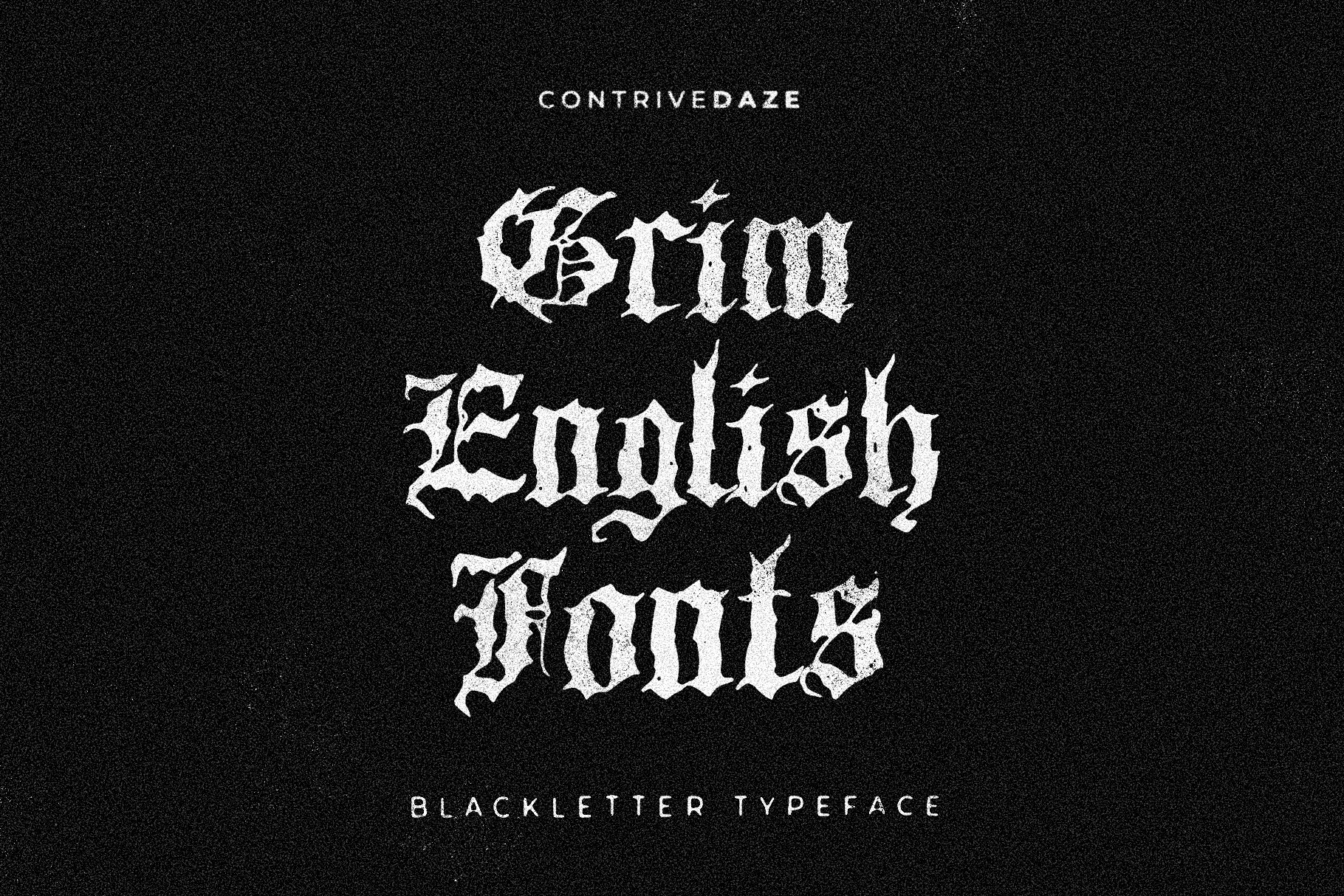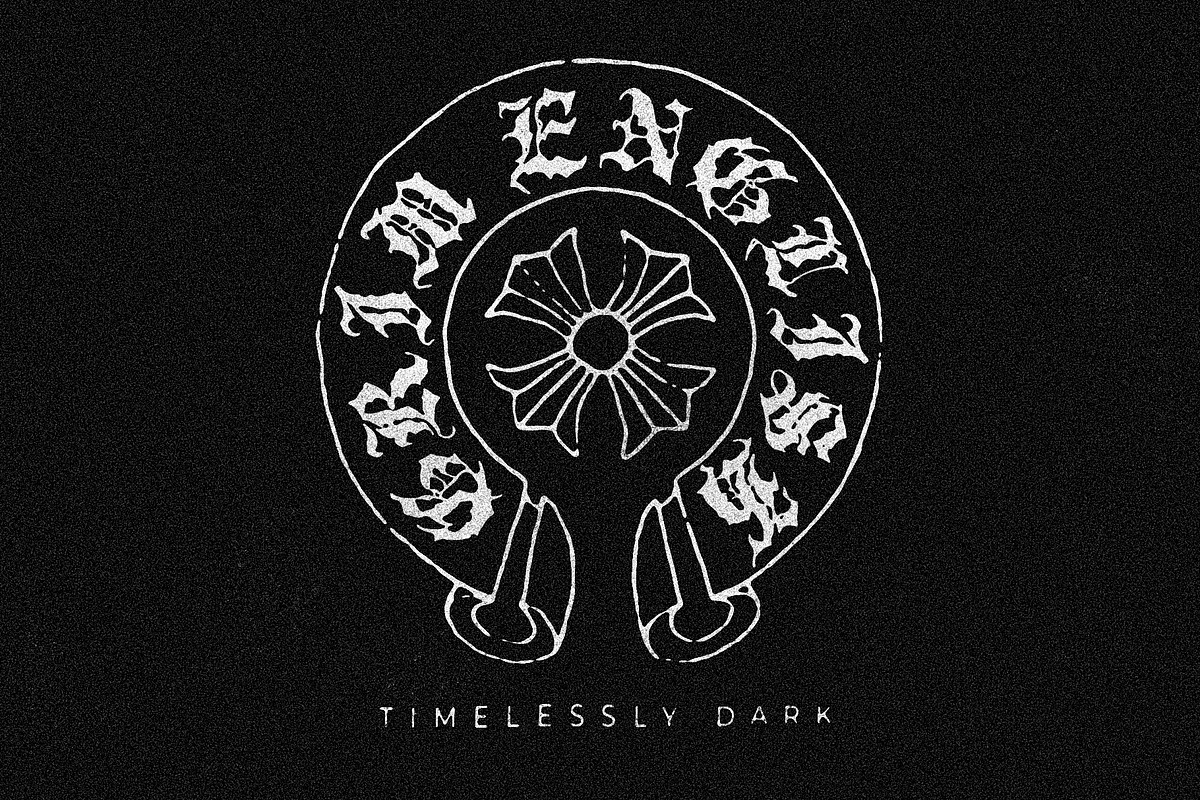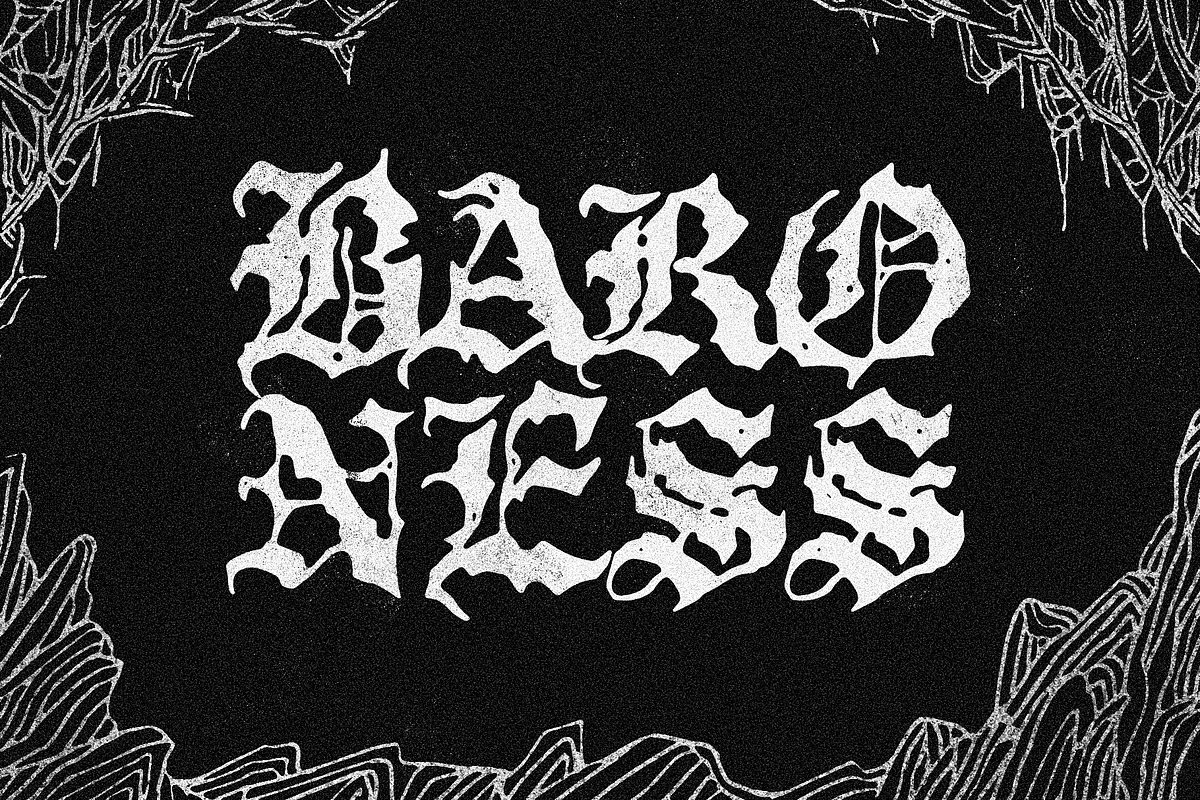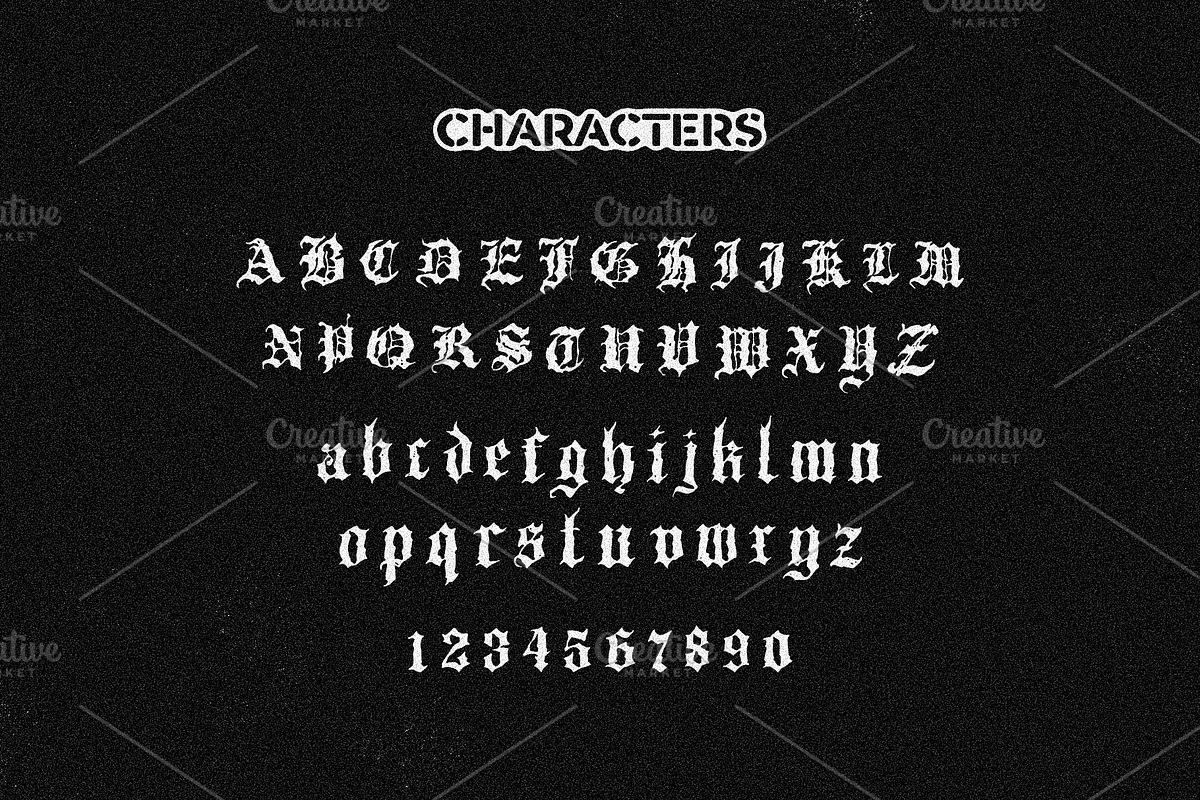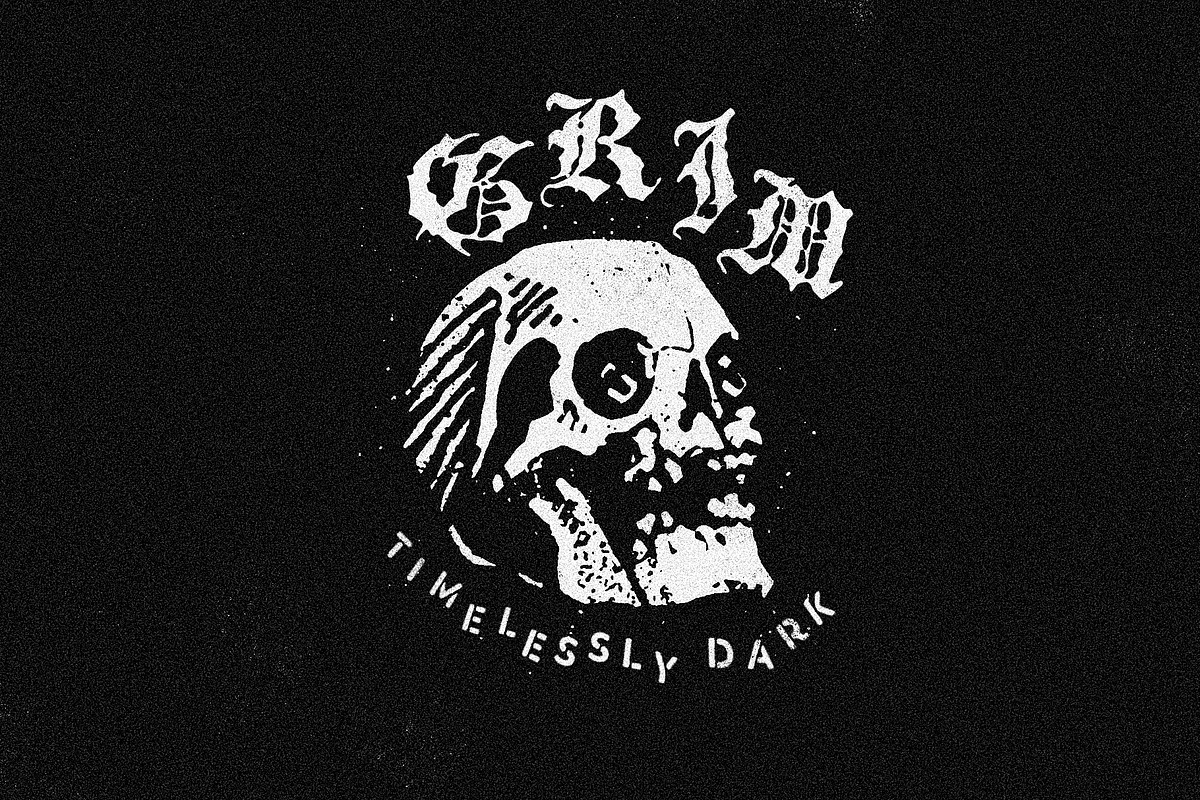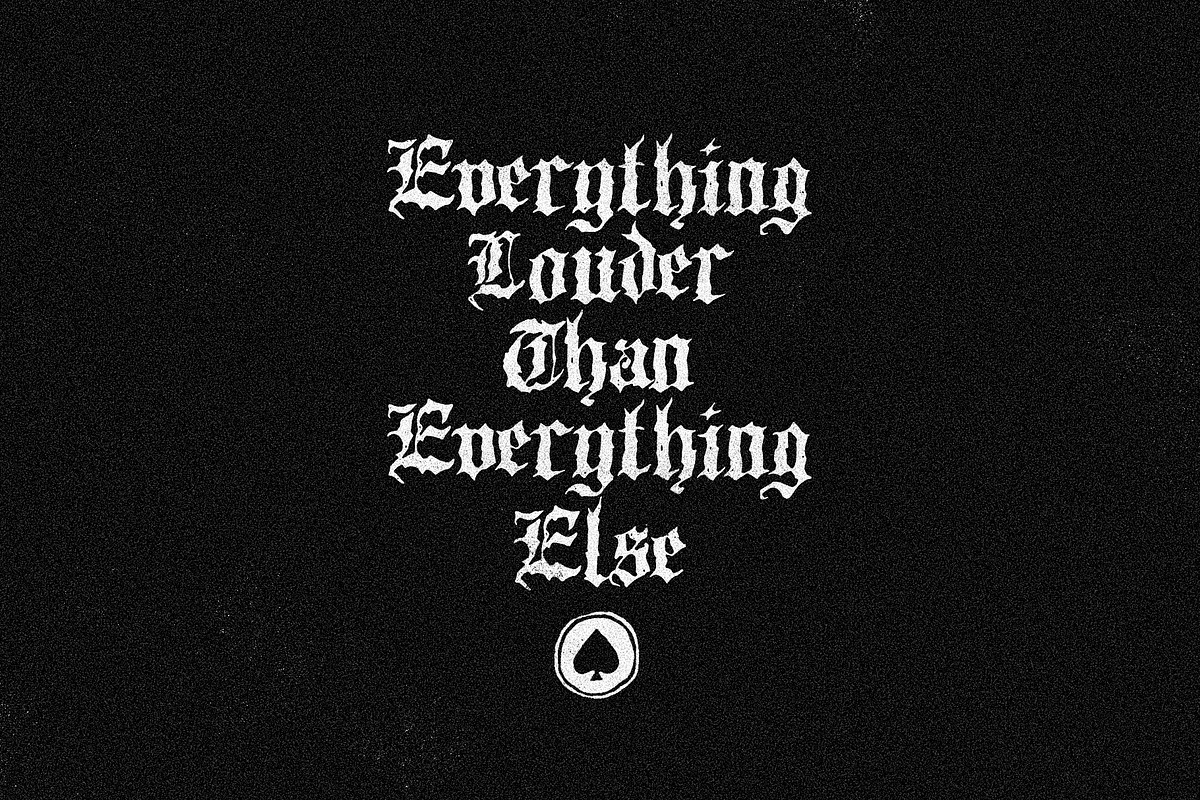
GRIM ENGLISH BLACKLETTER TYPEFACE
Grim English is a gothic blackletter typeface that captures the essence of timeless elegance and dark sophistication. With its sharp, intricate details and dramatic flair, this font is ideal for projects that seek to evoke a sense of tradition and bold authority. Perfect for book covers, logos, tattoos, or branding that needs a touch of vintage gravitas, Grim English commands attention and leaves a lasting impression.
Beyond its striking appearance, Grim English offers a versatile character set that maintains readability while preserving its ornamental complexity. Each letterform is carefully crafted, featuring bold strokes, pointed serifs, and subtle textures that enhance its antique, handcrafted feel. This makes it especially effective for designs rooted in gothic, medieval, or alternative aesthetics. Whether used for music merchandise, editorial layouts, or statement typography, Grim English brings a powerful visual identity that feels both historic and rebellious, making every composition stand out with intensity and purpose.